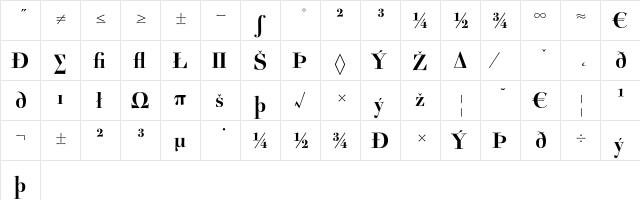
Acanthus BoldExpert Font Preview
Acanthus BoldExpert
Acanthus BoldExpert Font Details
Design Context for Acanthus Typeface
Acanthus offers clean, dependable letterforms without strong stylistic allegiance, making it a practical choice for designers who need flexibility. Its bold stroke weight gives it real presence on the page.
Pro Tip: Use Acanthus in both headline and body roles to test its range before committing to a single application.